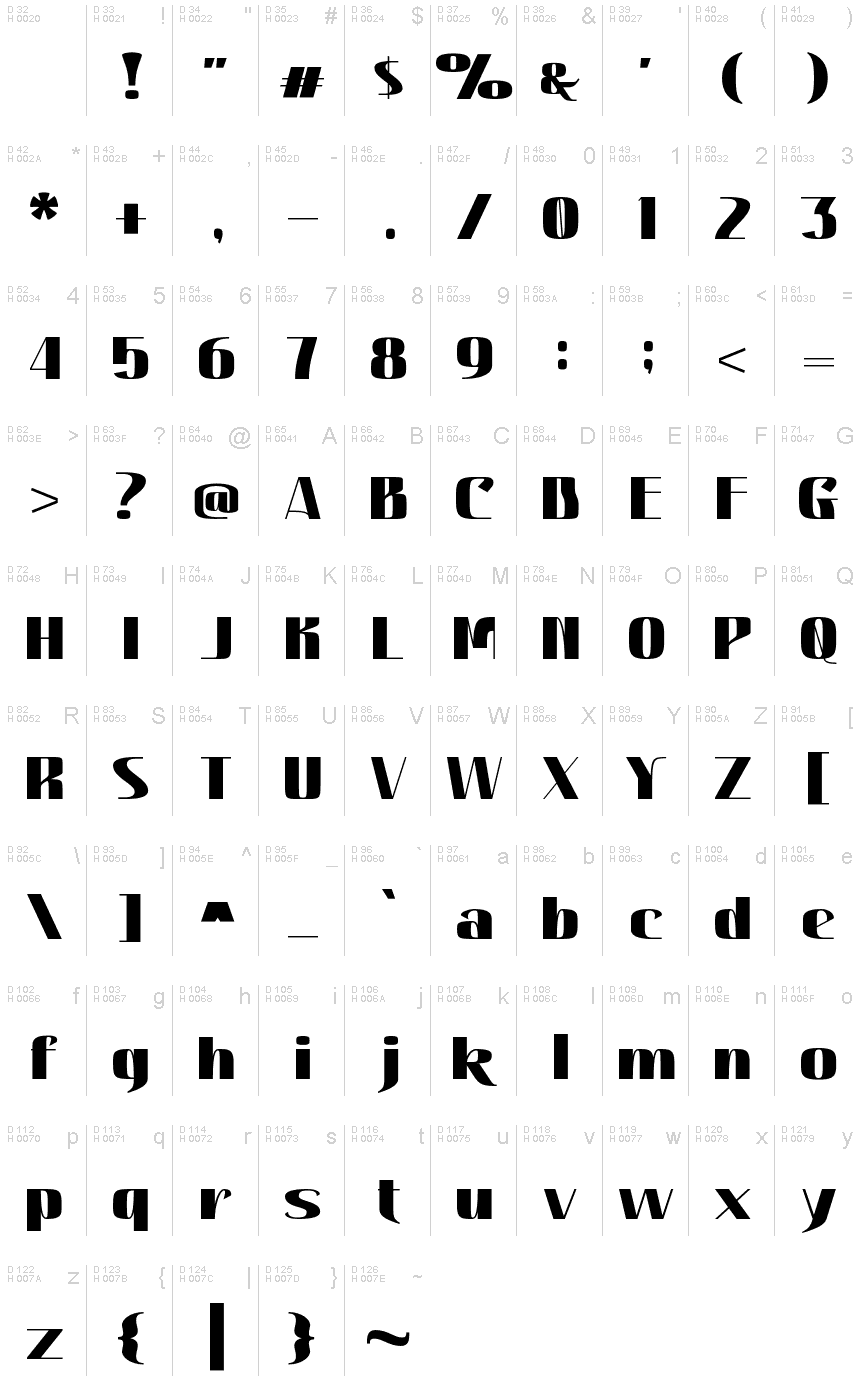
Hautte-Black
Hautte Black, from the Hautte family, is a typographic masterpiece crafted by Fontada that commands attention with its ultra-bold weight and semi-expanded width. This display font is not just a typeface; it's an experience. Each curve and line in Hautte Black is meticulously designed to bring a robust yet refined edge to your creative endeavors.
With 162 styles in its arsenal, Hautte Black offers an unparalleled versatility that seamlessly aligns with modern design trends. Whether you are crafting logos that demand impact or curating wedding branding with a touch of sophistication, Hautte Black's minimal sans serif elegance ensures it stands out in any context. Its hybrid personality marries luxury with functionality, making it an indispensable asset for designers seeking bespoke typography that makes every message resonate.
Embrace the boldness of Hautte Black and elevate your projects to new heights of professional aesthetics and memorable branding.